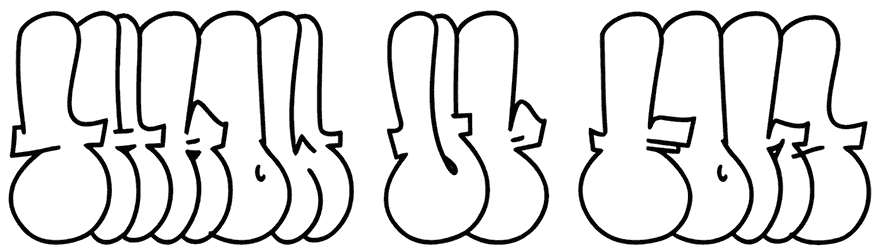
Throw-up Font
Throw-up Font is a bubble font that is cleverly designed, so it can evoke a sense of creativity, courage, dynamic, and grunge in the audience. This graffiti font does not have good readability but would be included in fa…
Throw-up Font is a bubble font that is cleverly designed, so it can evoke a sense of creativity, courage, dynamic, and grunge in the audience.
This graffiti font does not have good readability but would be included in fantasy content such as social media posts, children’s book illustrations, and restaurant menus. It should not be overlooked that this font does not support lowercase letters, numbers, and punctuation.